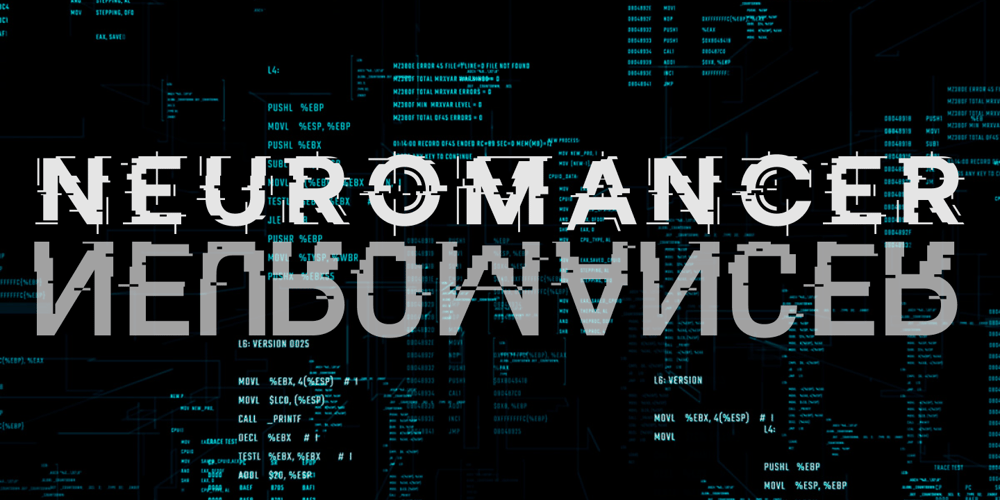
Neuromancer Font Family was designed by Eugene Bunin and published by Harvester Type. Neuromancer contains 2 styles and family package options. NEUROMANCER is a font inspired by the novel of the same name by William Gibson, the TV series “The Lone Gunmen” and the game “Watch Dogs”. Two versions of glitch and regular, for different purposes. I wanted to convey the atmosphere of all references. The atmosphere of cyberspace and the oppressive atmosphere of hacking.The font can be used in posters, covers, texts, titles, banners, and others.If you find an error in the font or kerning, please write to me at: bunineugene@gmail.com